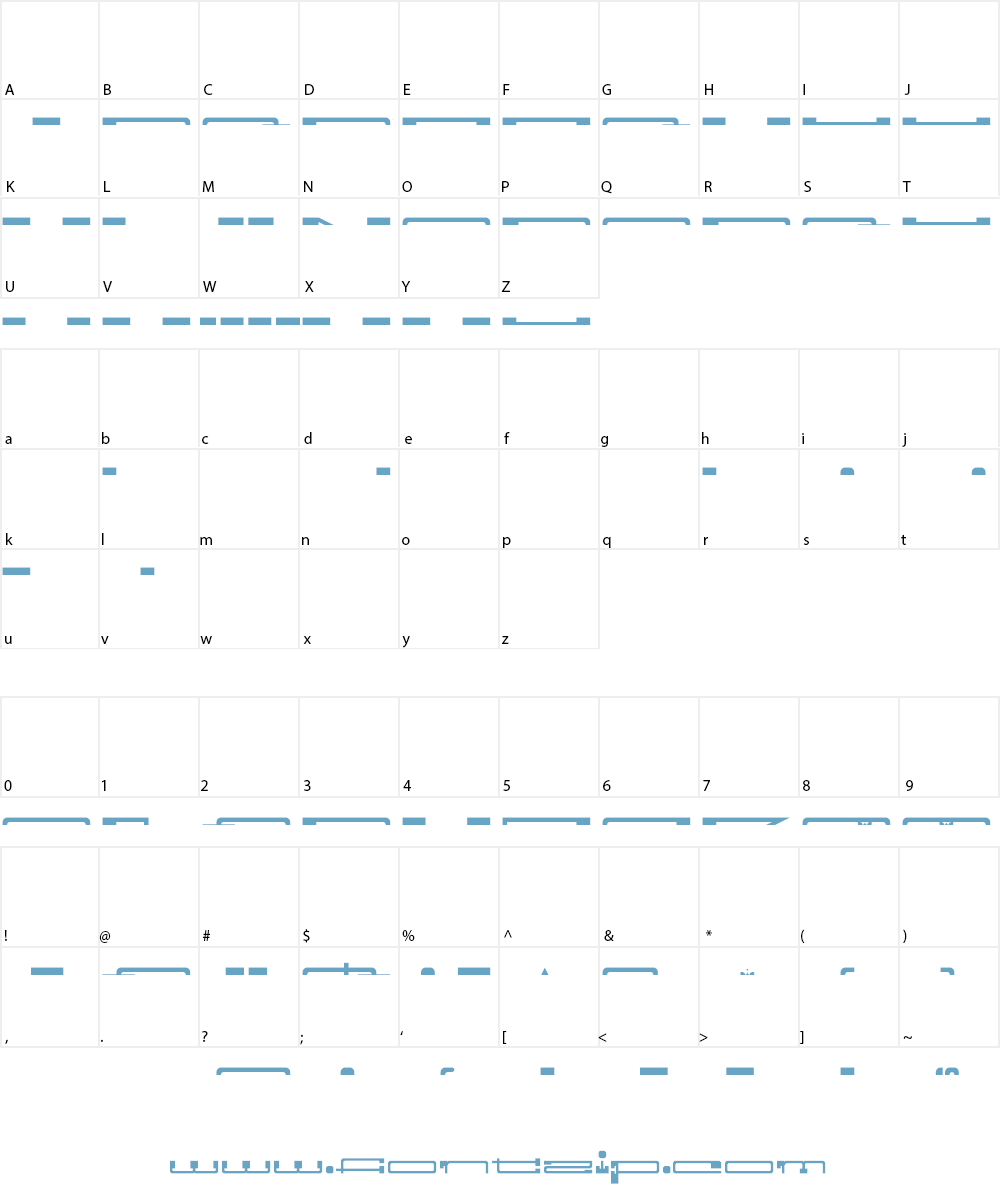
Experimental slab-serif. The added height from the serifs is quantized so that the serifs, rather than the normal lines, determine a glyph's geometry.
Despite what you may have heard, a "hoedown" is just a party. :D